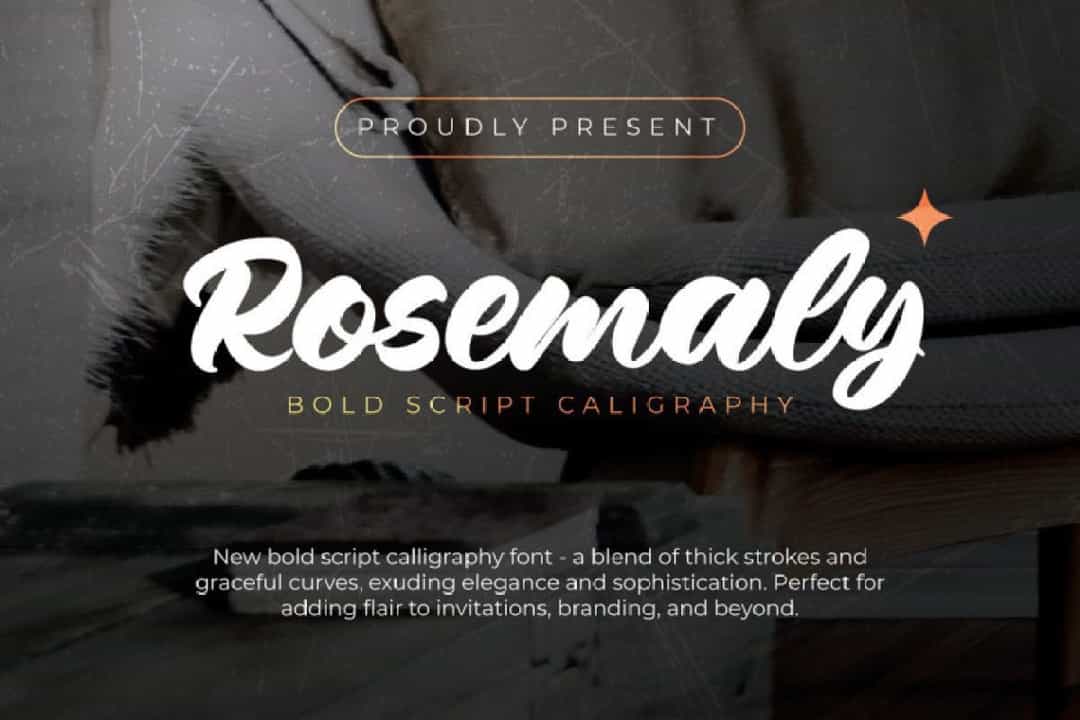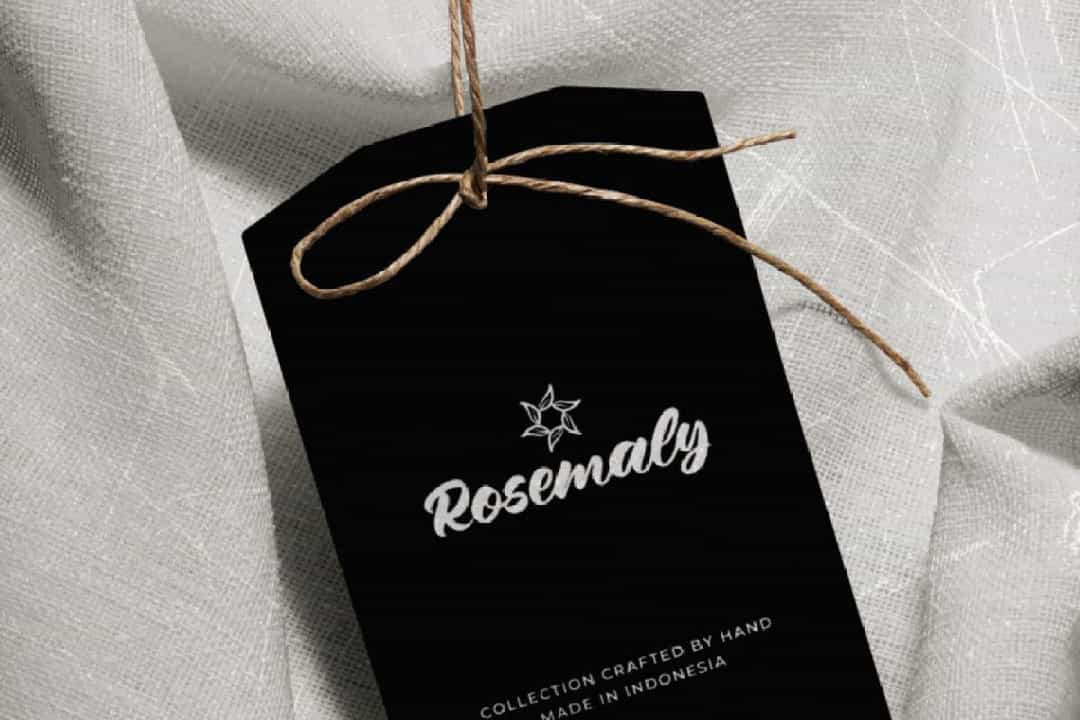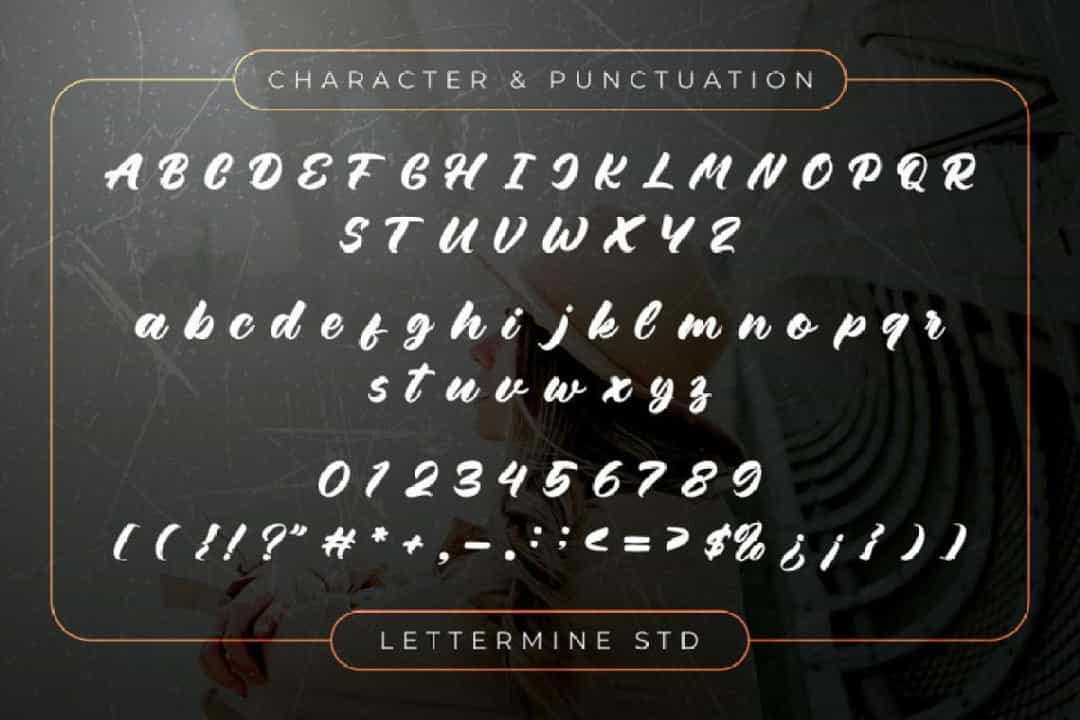
Rosemaly font is an exquisite and chic script font that exudes timeless beauty and sophistication, adding an exquisite look to any design project. Boasting elegant curves and flourishes that add an air of luxury, Rosemaly makes each text appear exquisite – perfect for wedding invitations, packaging designs, branding projects and branding efforts alike!